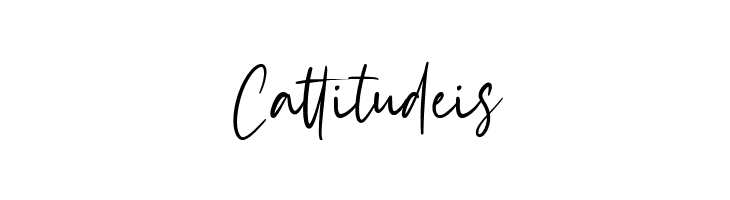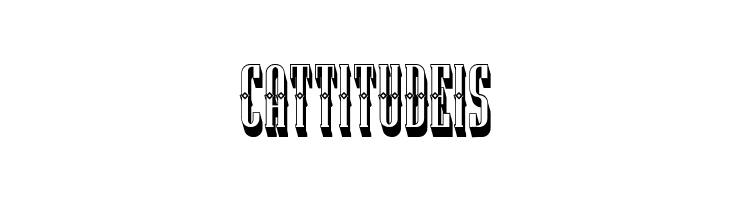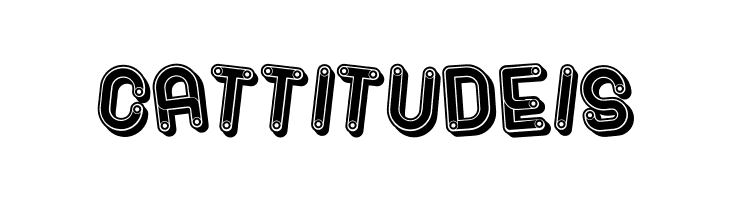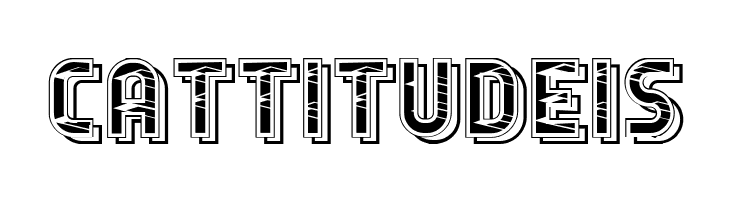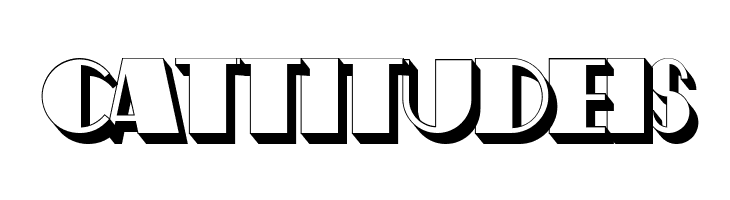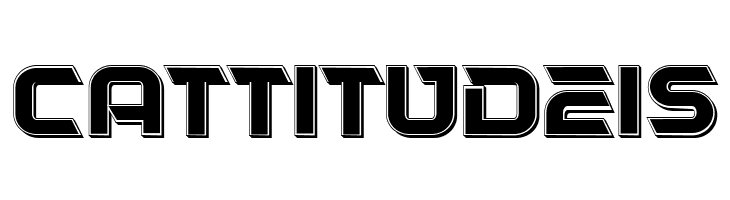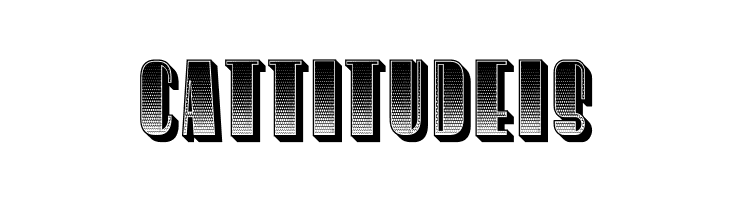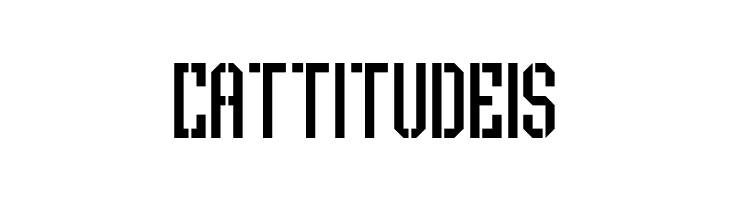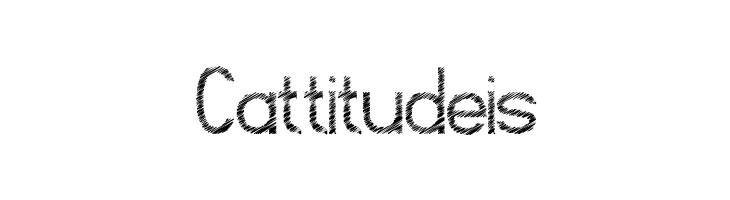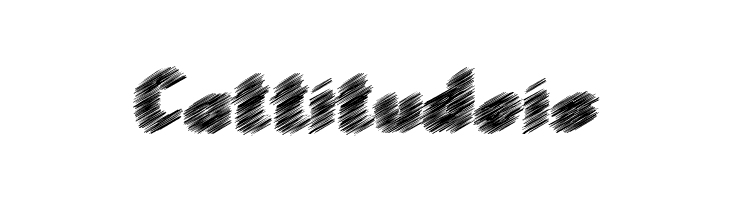
• Santa Claus Standard Regular
A bold, decorative font with intricate patterns and thick outlines.
• Santa FREE
A festive, decorative font with holiday-themed elements like antlers and trees.
• Santa Robin
A bold, playful script font with a handwritten style.
• SantaFREE
A festive, decorative font with holiday-themed embellishments.
• SantEliaRough-Line
A hand-drawn script font with a rough, textured line quality and flowing connections.
• SantEliaRough-LineThr
A cursive, hand-drawn font with a rough, artistic style.
• SantEliaRough-LineTwo
A hand-drawn, cursive font with a rough, sketch-like appearance.
• SantEliaRoughAlt-BoldThrDMO
A bold, textured script font with a distressed, vintage appearance.
• SantEliaScript-BoldDMO
A bold, dynamic script font with flowing cursive letterforms.
• Santiago Sans St
A modern, geometric sans-serif font with uniform strokes and clear readability.
• Sapir Italic
• SapirSans
• SapirSansItalic
• Sarah 3D Regular
A bold, 3D font with geometric structure and shadow effects.
• Sarah Regular
A bold, decorative font with a 3D effect and diagonal lines.
• SarahBernhardt
A geometric and angular font with modern and vintage influences.
• SardinenHR
Bold, geometric font with strong, uniform strokes and a modern, industrial feel.
• SardinenKT
Bold, geometric font with blocky, angular characters for a modern, assertive look.
• SassafrassyPatterns
A decorative collection of animal, floral, script, and geometric pattern glyphs.
• Saturday Champagne Demo Regular
A flowing, cursive script font with elegant, interconnected letters.
• Saturn Regular